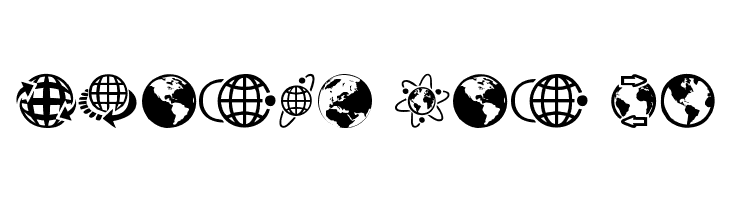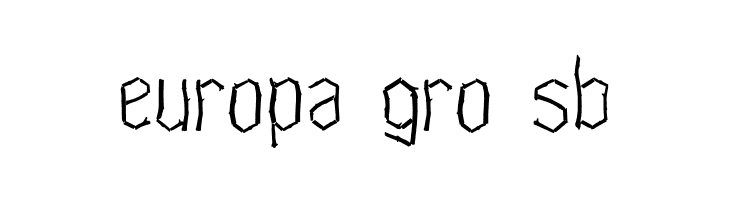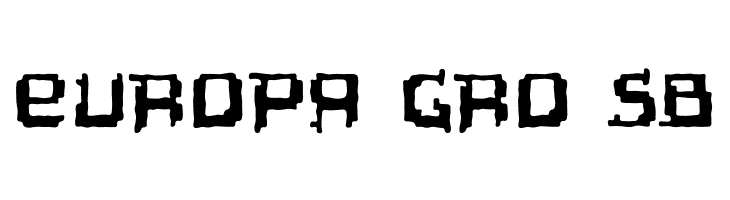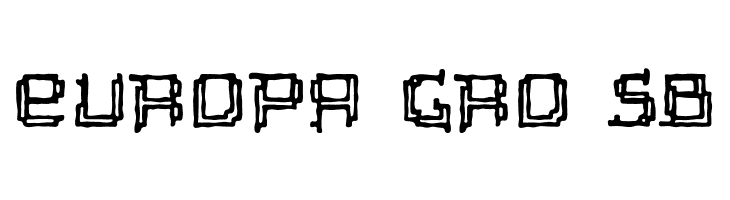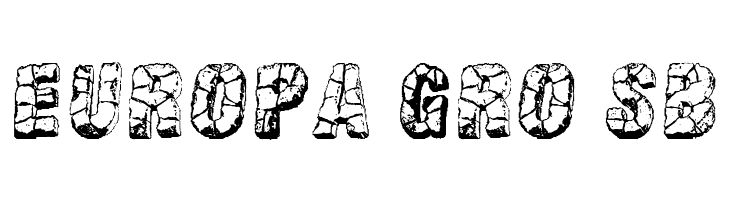
A diverse set of globe and world map icons in various illustrative and geometric styles.
A rugged, hand-drawn font with an organic, twig-like appearance.
A bold, handcrafted font with a rugged, organic feel and decorative tree elements.
A bold, organic font with a rugged, hand-drawn appearance.
An organic, hand-drawn inline font with a rugged, textured appearance.
A rugged, stone-like font with a textured, bold appearance.
An organic, textured font with jagged edges, resembling decaying leaves.
A decorative script inspired by Tolkien's Elvish writing, featuring elegant, flowing characters.
Icon-based decorative font themed around water rockets and related objects.
A bold, organic font with a hand-carved, rustic appearance.